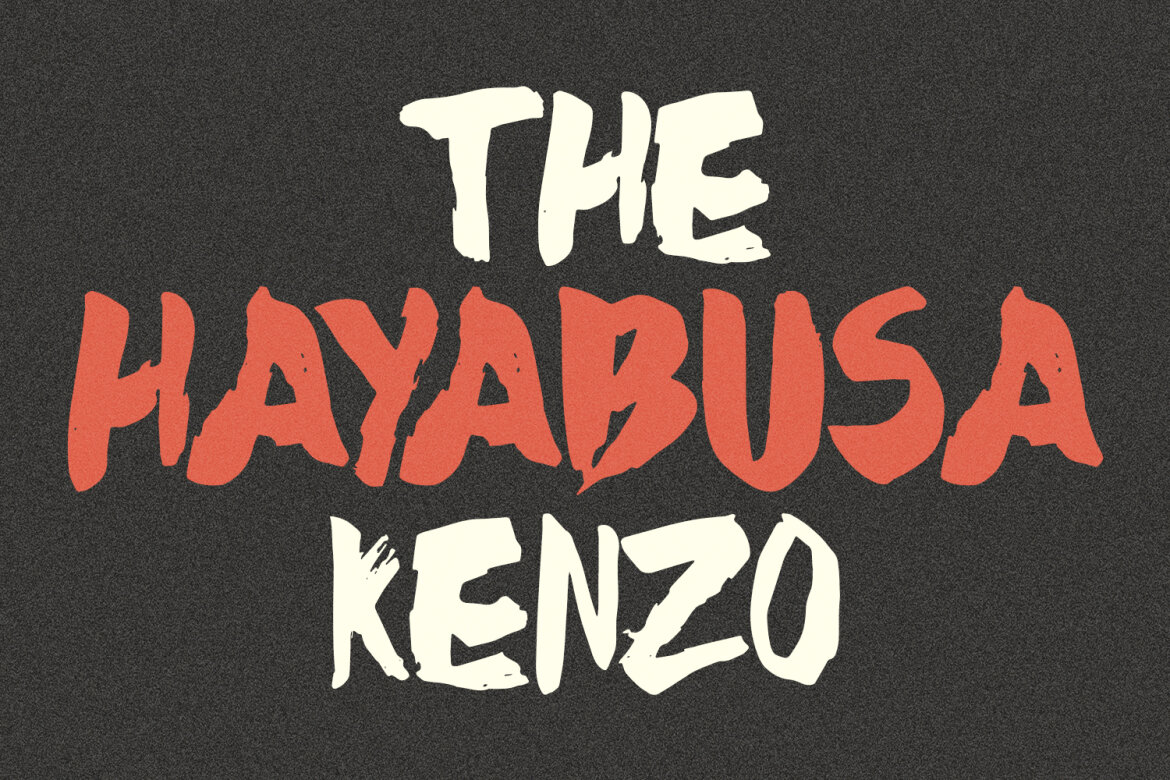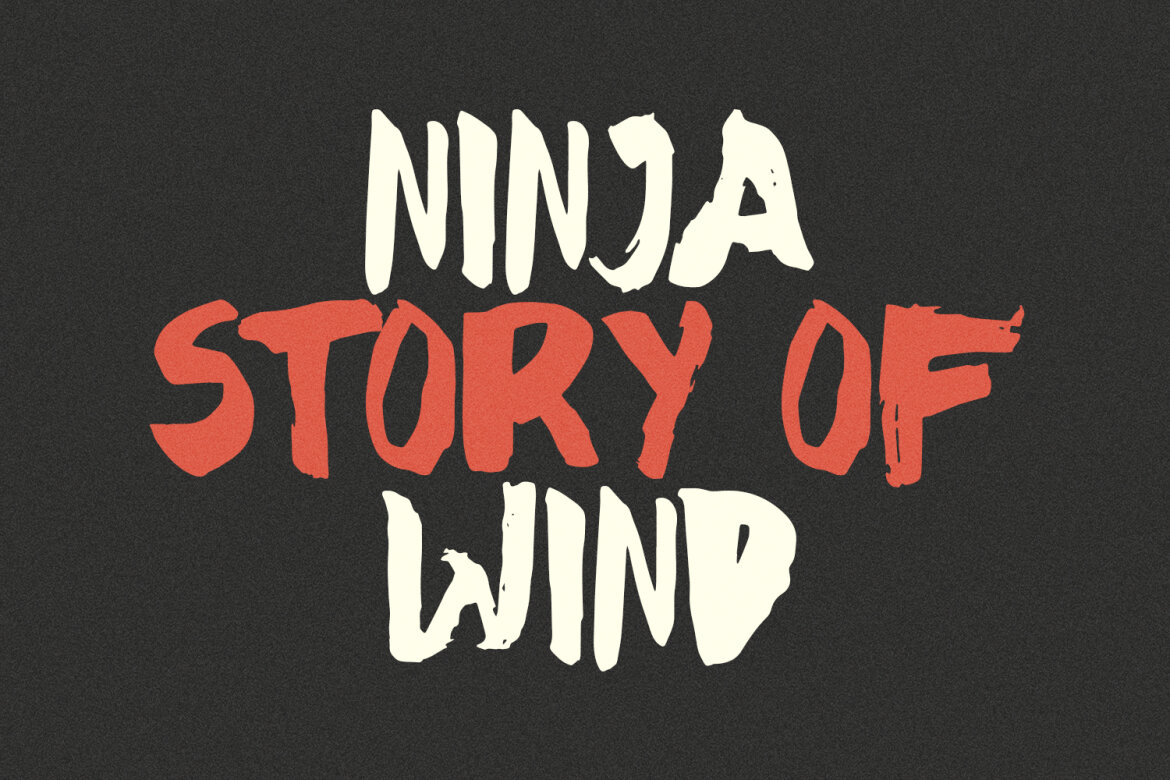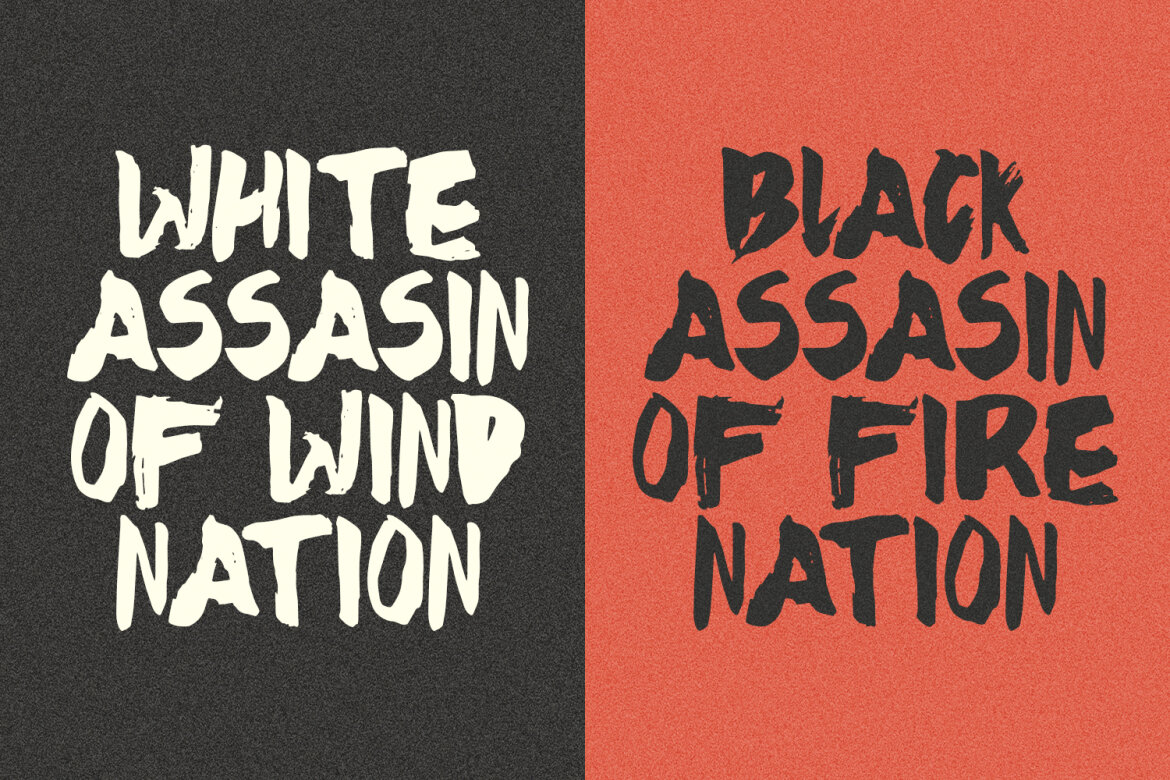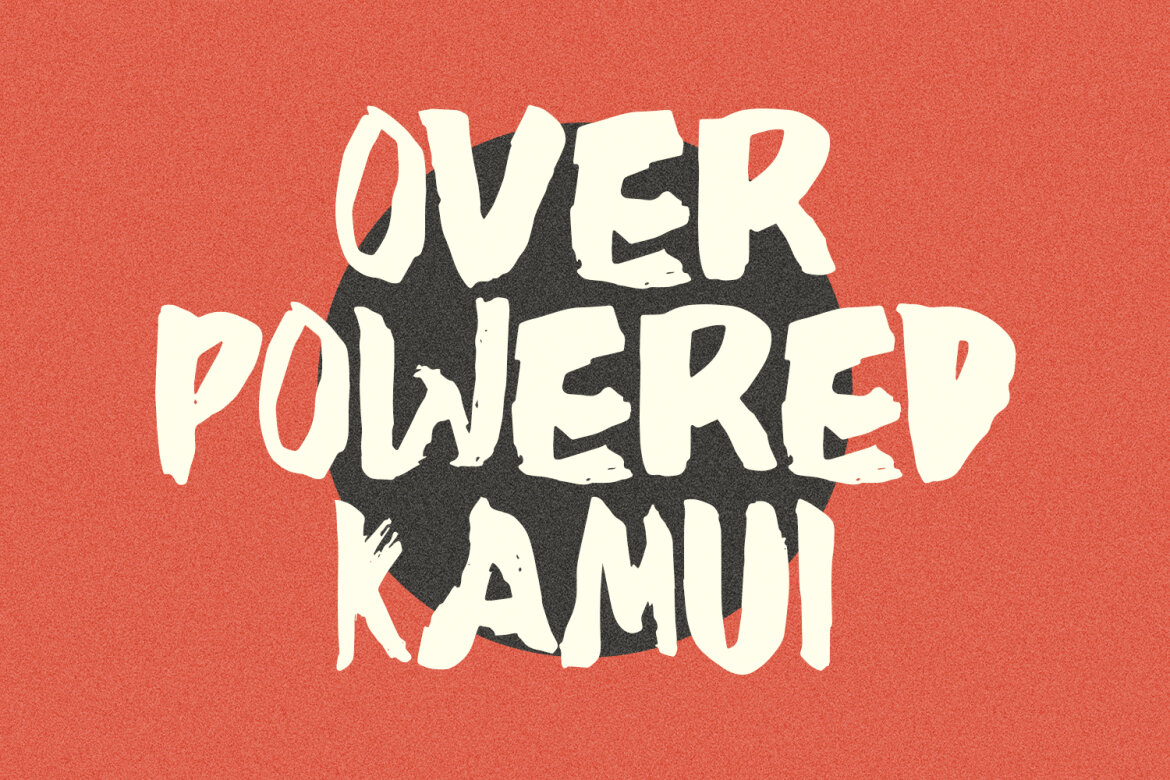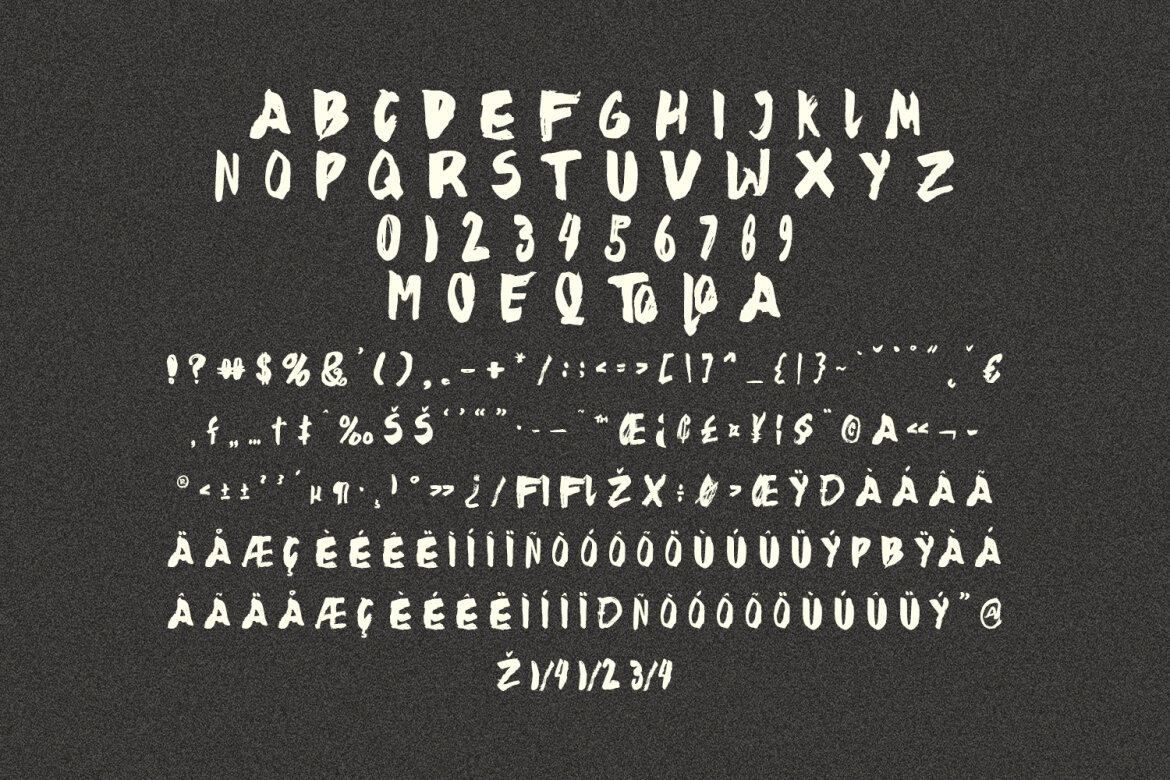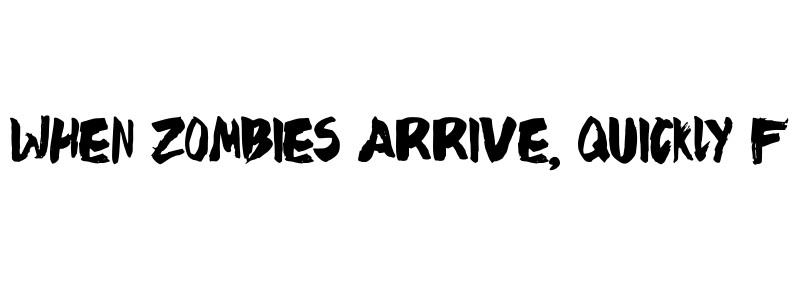
Vicest Japanese Brush FREE Font
Vicest
Vicest is a japanese brush font. Heavy brush, fun character with a bit of ligatures and alternates. To give you an extra creative work. Vicest font support multilingual more than 100+ language. This font is good for logo design, Social media, Movie Titles, Books Titles, a short text even a long text letter and good for your secondary text font with script or serif. Make a stunning work with Vicest font.